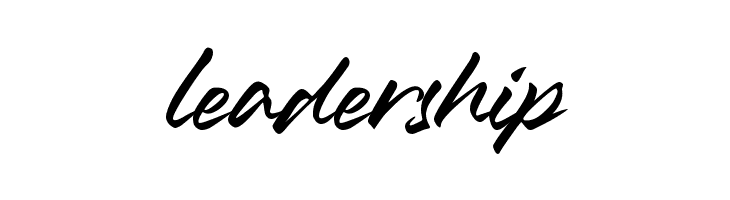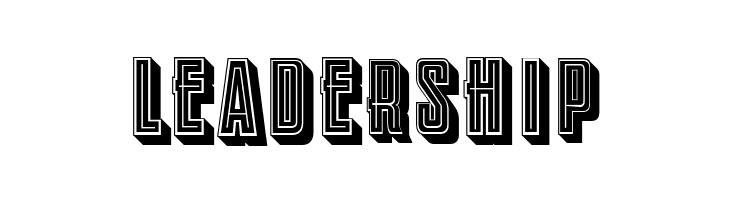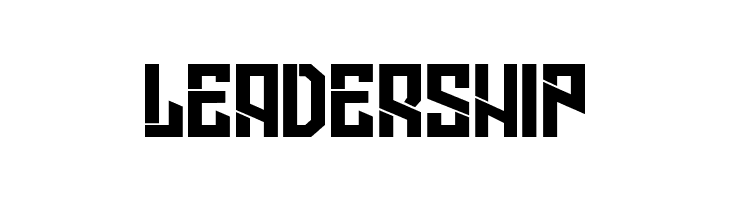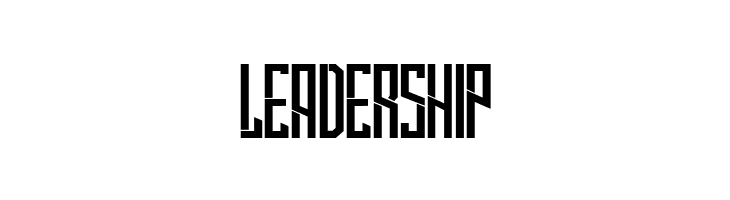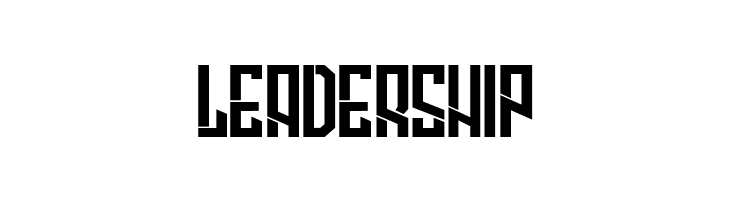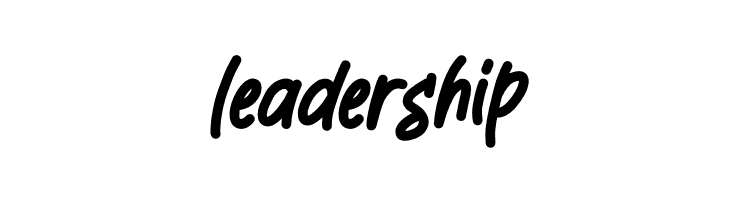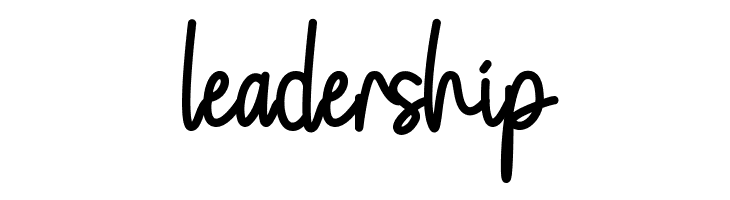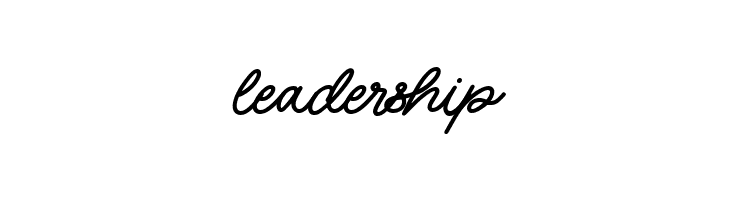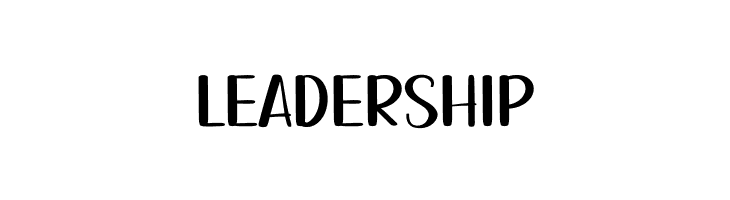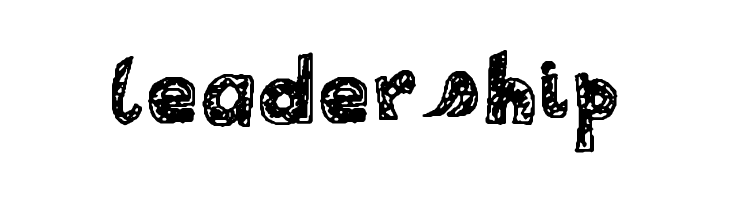
A graceful and elegant script font with flowing, interconnected characters.
A modern, geometric font with a futuristic and structured design.
A casual, handwritten-style font with smooth, flowing lines and a playful tone.
A playful, handwritten font with thin, slightly uneven strokes and a casual feel.
An elegant script font with high contrast and decorative swashes.
A bold, flowing script font with a dynamic, handwritten style.
An elegant serif font with decorative swirls and flourishes.
A rugged, distressed font with a vintage, hand-drawn style.
A vintage, hand-drawn font with a textured, rustic appearance.
A bold, geometric, and condensed font with a futuristic and industrial style.
A tall, condensed font with sharp, angular lines and a geometric style.
A bold, geometric font with a futuristic and digital aesthetic.
A playful, hand-drawn font with bold, rounded characters and a whimsical style.
A bold, decorative font with dynamic curves and sharp serifs.
A bold, playful handwritten font with a lively and energetic style.
A playful, bold handwritten font with rounded, expressive characters.
A bold, hand-drawn sans-serif font with playful, rounded forms.
A whimsical, curly decorative font with playful loops and swirls.
A playful, hand-drawn font with a casual and whimsical style.
A playful, bold handwritten font with smooth curves and a lively appearance.
A fluid, cursive handwritten font with elegant, interconnected letters.
A bold, handwritten font with dynamic strokes and a personal touch.
A dynamic and expressive handwritten font with fluid, irregular strokes.
A playful handwritten font with fluid strokes and a casual, friendly style.
A dynamic, hand-drawn font with an expressive and artistic style.
A lively, flowing script font with elegant cursive letterforms.
A whimsical, hand-drawn style font with playful and irregular strokes.
A bold, three-dimensional decorative font with strong outlines and geometric structure.